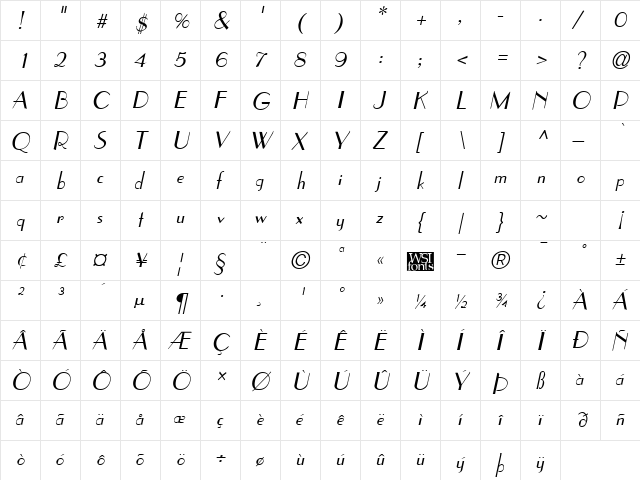
WeekendInParis Italic
Design Context for WeekendInParis Typeface
WeekendInParis takes a measured approach to typography — its balanced proportions and neutral character make it a reliable workhorse for both digital and print work. The dynamic lean of this cut emphasises speed and emphasis in any layout.
Pro Tip: Try WeekendInParis for annotation and caption copy alongside an upright companion — the contrast in angle creates a dynamic but ordered typographic system.